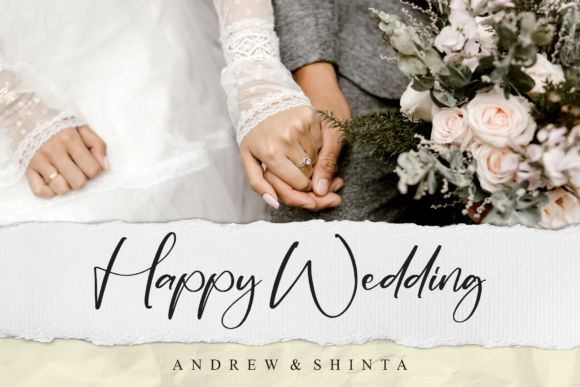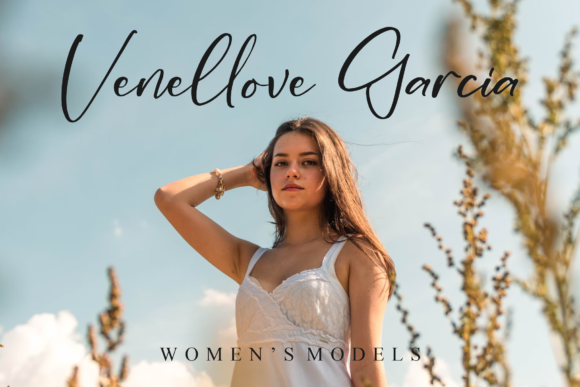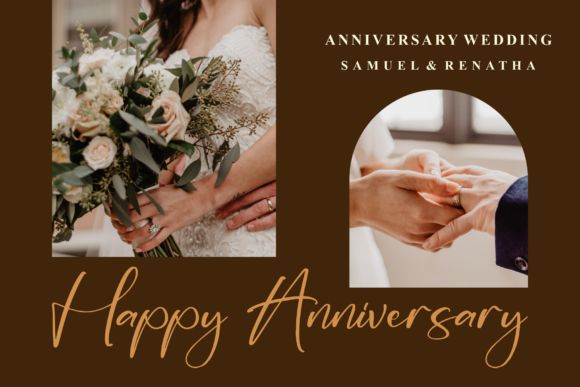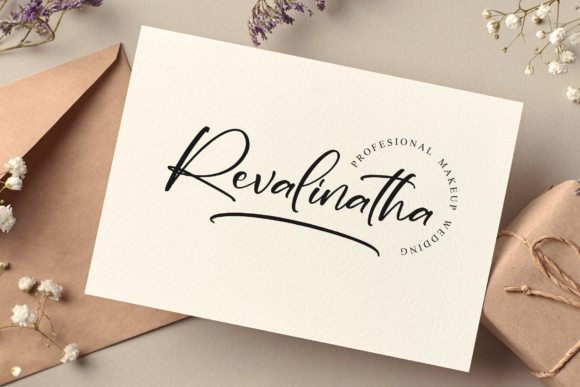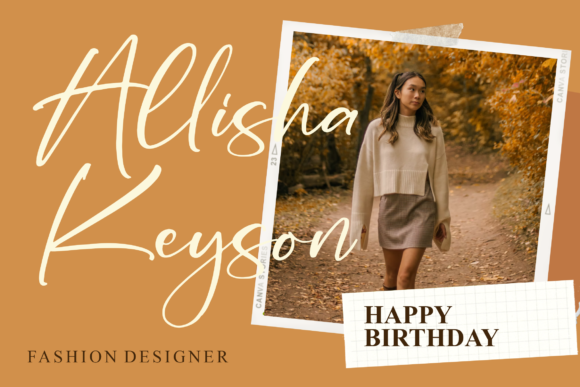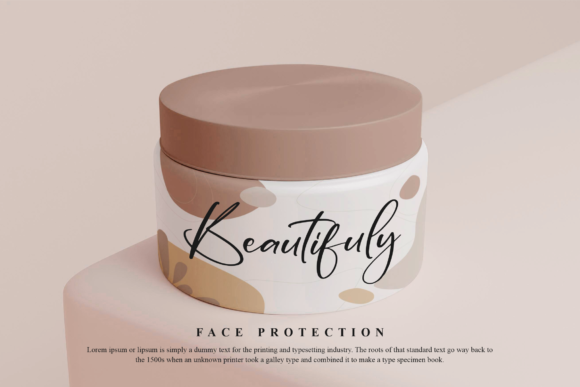
Amanitha Font: Elevate Your Designs with Elegance and Sophistication
In the world of design, typography plays a crucial role in conveying the tone and aesthetic of a project. For designers and crafters seeking a font that exudes elegance and sophistication, Amanitha Font is an excellent choice. This free-flowing script font is meticulously crafted for a variety of applications, including packaging products, invitation cards, flyers, mockups, event posters, and more.
The Characteristics of Amanitha Font
Amanitha Font boasts a beautiful and balanced character that seamlessly integrates with a wide range of design pools. Its flowing script style is perfect for creating visually appealing and high-quality designs that capture the essence of luxury and refinement. Whether you’re working on a branding project, a wedding invitation, or a promotional poster, Amanitha Font is sure to elevate your design to the next level.
One of the standout features of Amanitha Font is its PUA (Private Use Area) encoding. This means that designers can easily access all the glyphs and swashes, allowing for greater flexibility and creativity in their designs. With PUA encoding, you can effortlessly navigate through the font’s extensive character set, including alternates, ligatures, and decorative swashes, to create unique and stunning designs.
Amanitha Font’s versatility is one of its most significant advantages. Its elegant and flowing script style makes it suitable for a wide range of design applications, including:
- Packaging products: Add a touch of luxury to your product packaging with Amanitha Font.
- Invitation cards: Create beautiful and sophisticated wedding invitations, birthday cards, and more.
- Flyers: Design eye-catching flyers that showcase your brand’s elegance and refinement.
- Mockups: Use Amanitha Font to create stunning mockups that showcase your design skills.
- Event posters: Design event posters that exude sophistication and glamour.
Why Choose Amanitha Font?
With so many fonts available, why choose Amanitha Font? Here are a few compelling reasons:
- High-quality design: Amanitha Font is crafted with attention to detail, ensuring a high-quality design that reflects your brand’s values.
- Elegance and sophistication: This font exudes elegance and sophistication, making it perfect for luxury brands and high-end designs.
- Easy to use: With PUA encoding, accessing glyphs and swashes is a breeze, making it easy to create stunning designs.
- Versatility: Amanitha Font can be used in a variety of design applications, making it a valuable addition to your font library.
Tips for Using Amanitha Font
To get the most out of Amanitha Font, here are a few tips:
- Pair with complementary fonts: Combine Amanitha Font with complementary fonts to create a unique and visually appealing design.
- Experiment with swashes: Take advantage of Amanitha Font’s extensive swash collection to add a personal touch to your designs.
- Use in large designs: Amanitha Font is perfect for large designs, such as posters and billboards, where its elegant style can shine.
Amanitha Font is a stunning free-flowing script font that is sure to elevate your designs to new heights. With its elegant and sophisticated style, PUA encoding, and versatility in design applications, this font is a valuable addition to any designer’s font library. Whether you’re working on a luxury brand project, a wedding invitation, or a promotional poster, Amanitha Font is the perfect choice for designers and crafters seeking high-quality vibes.